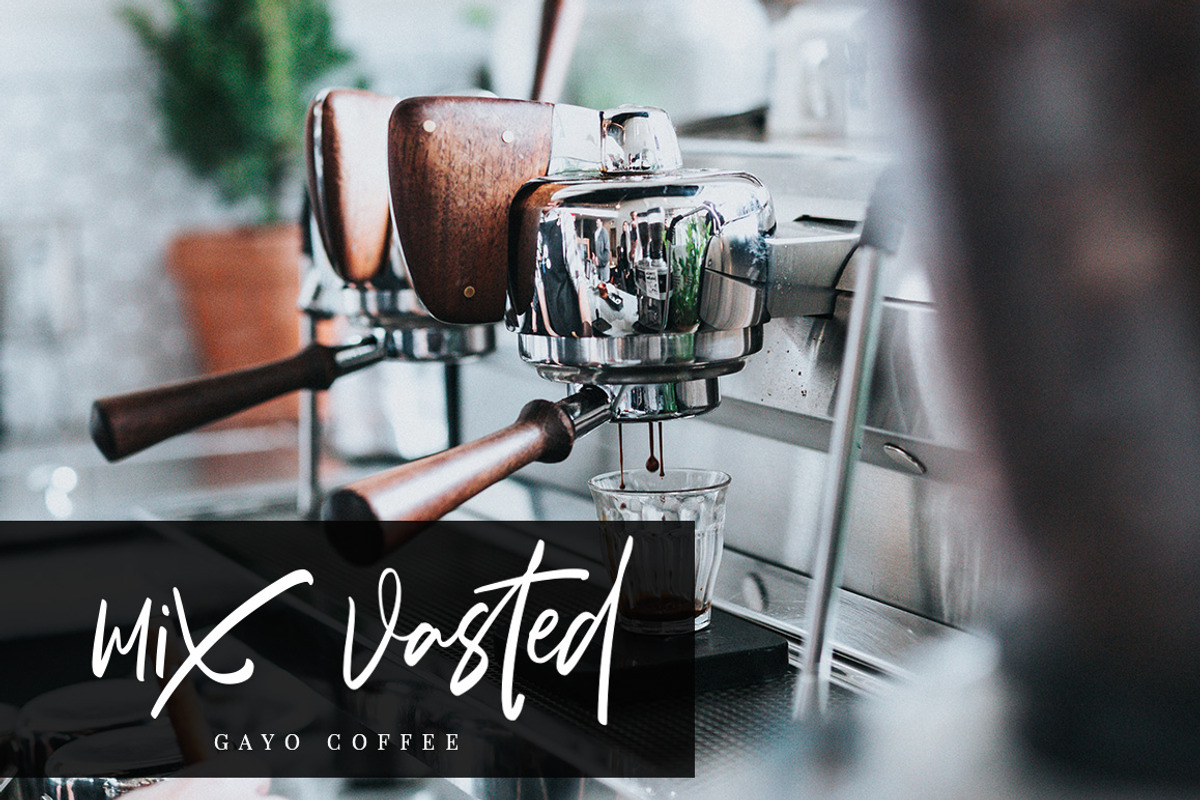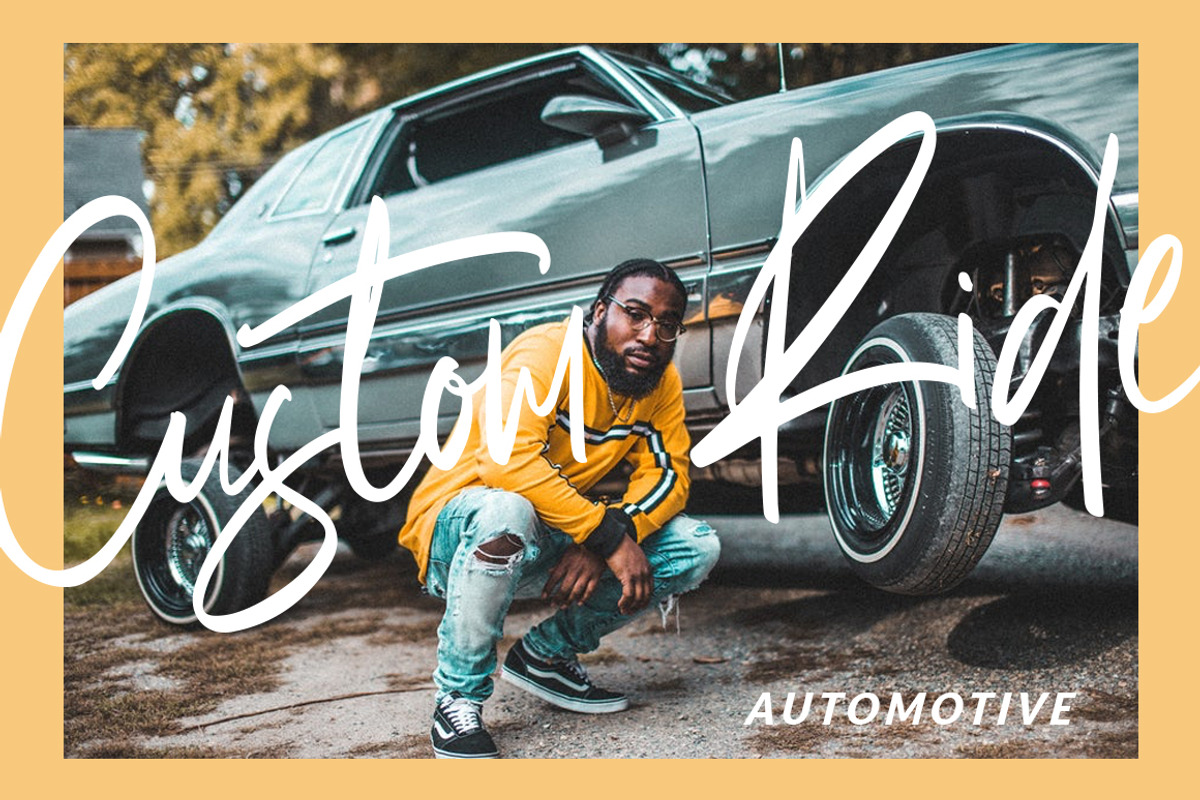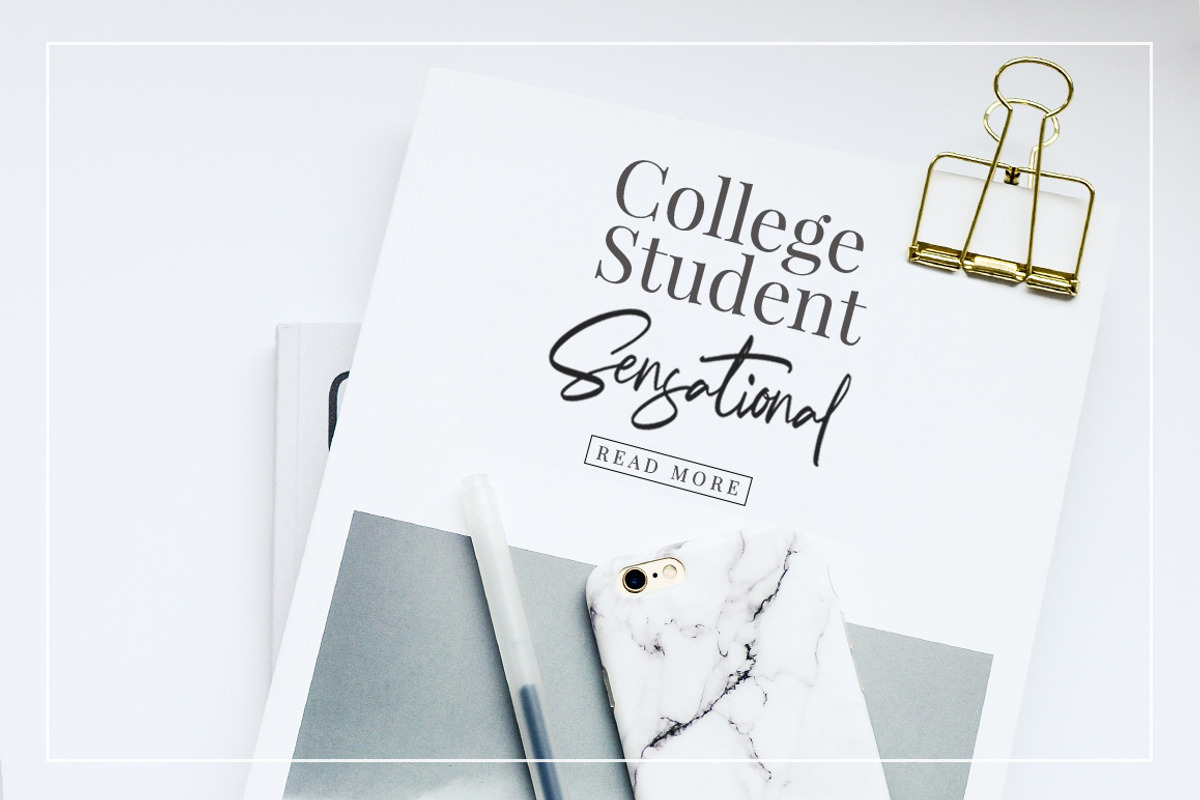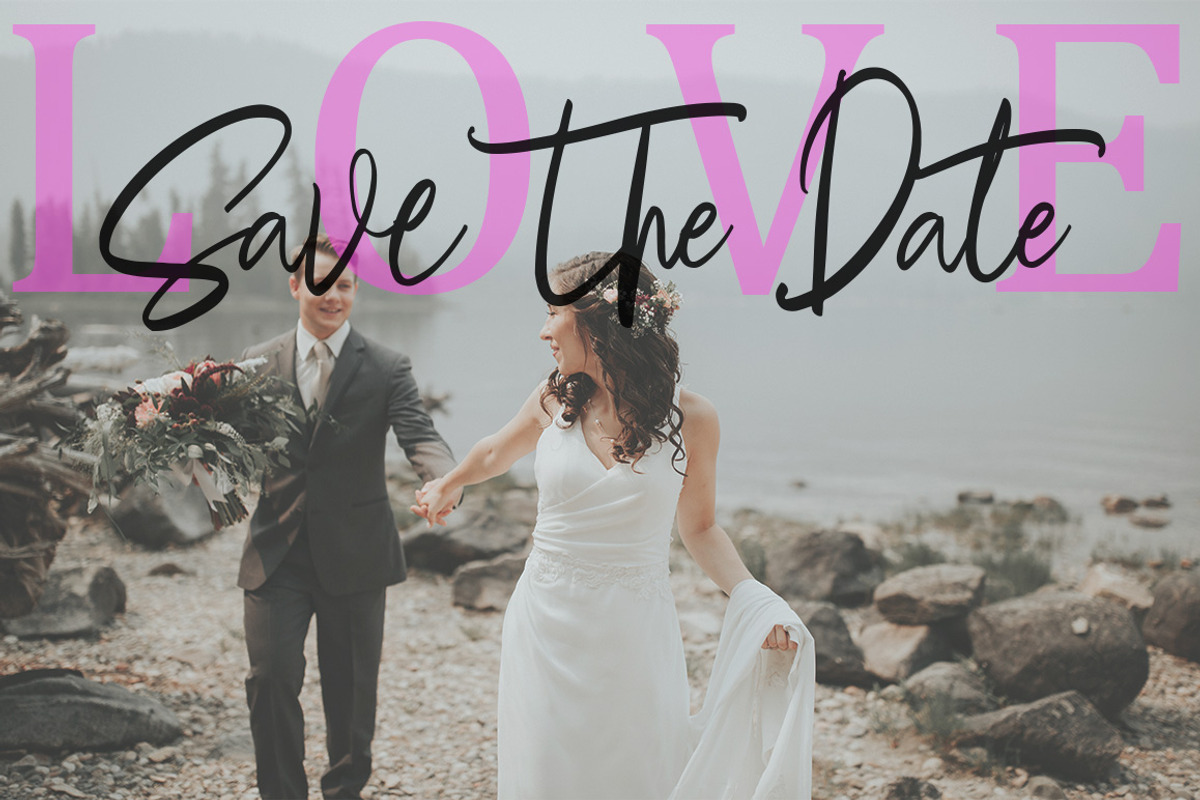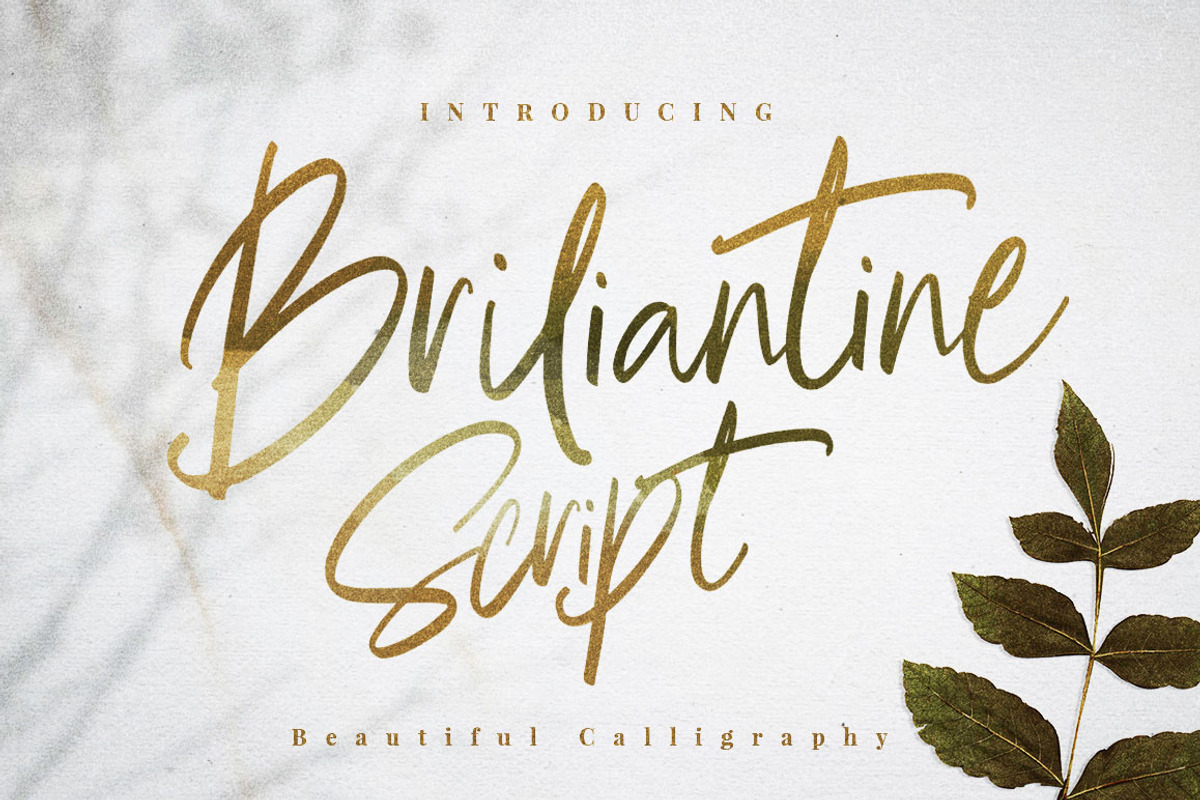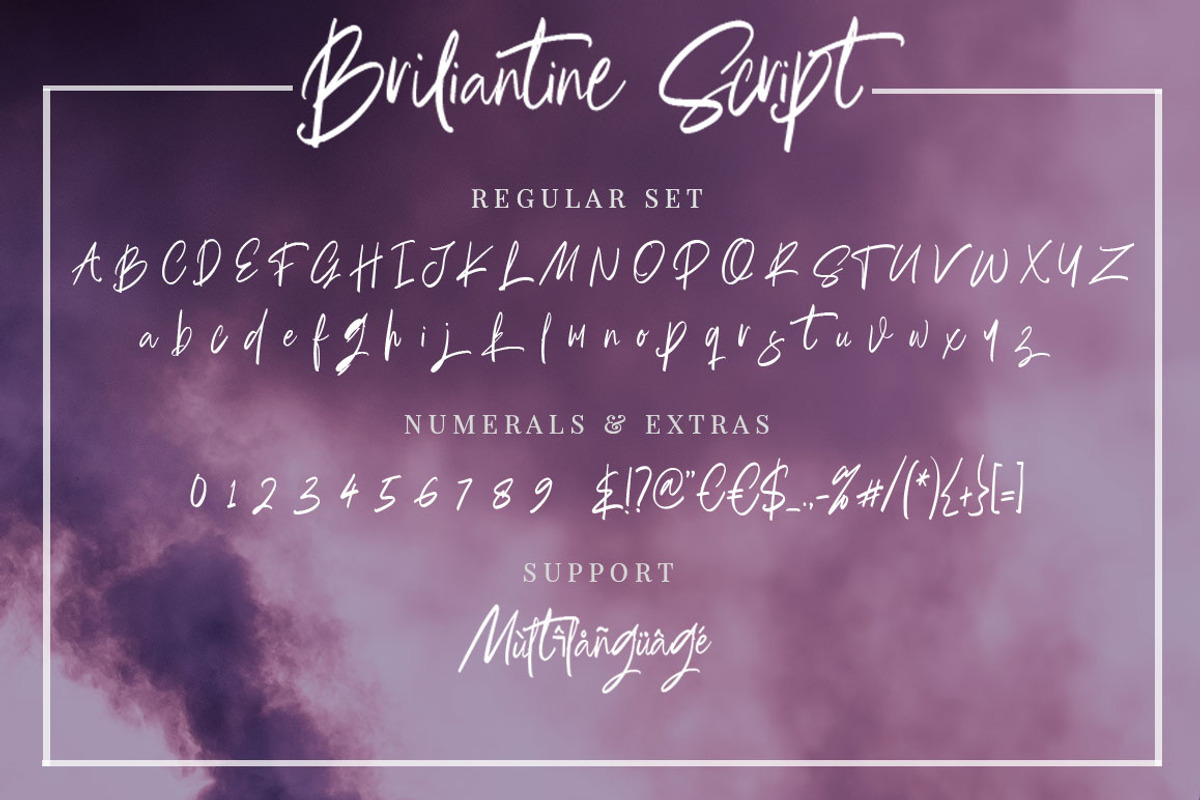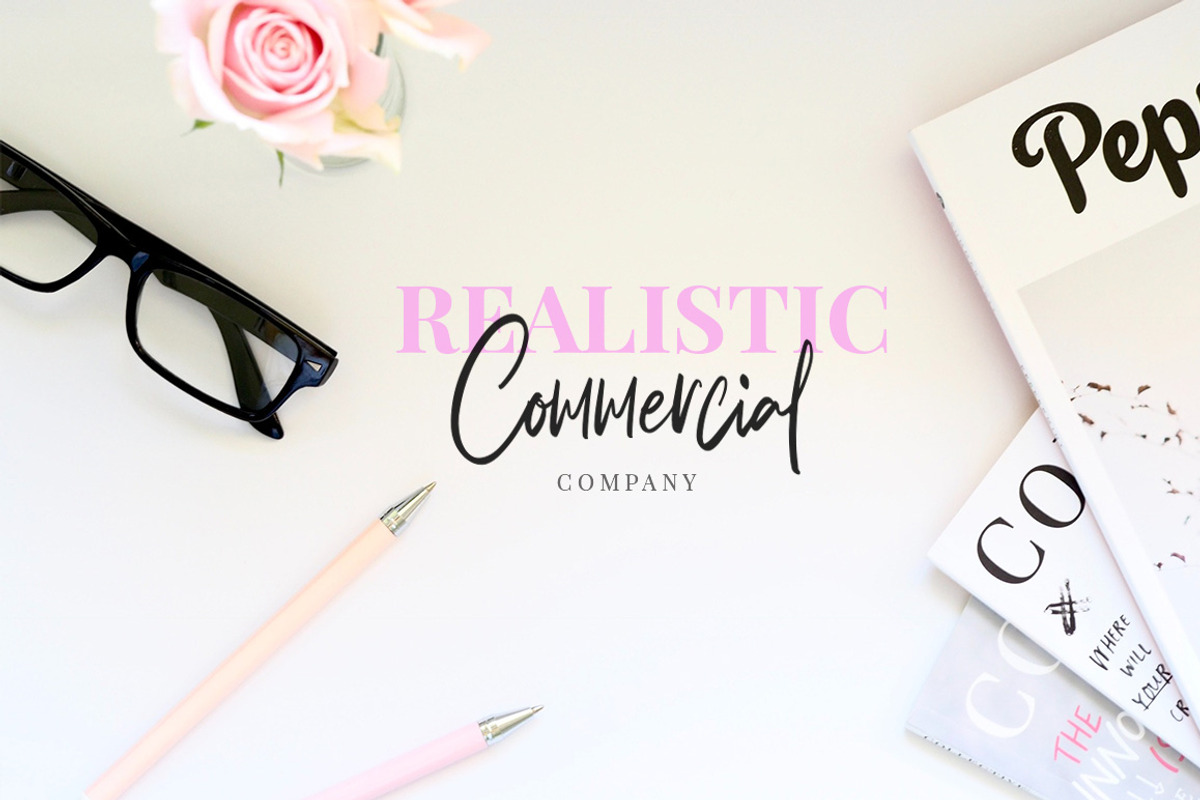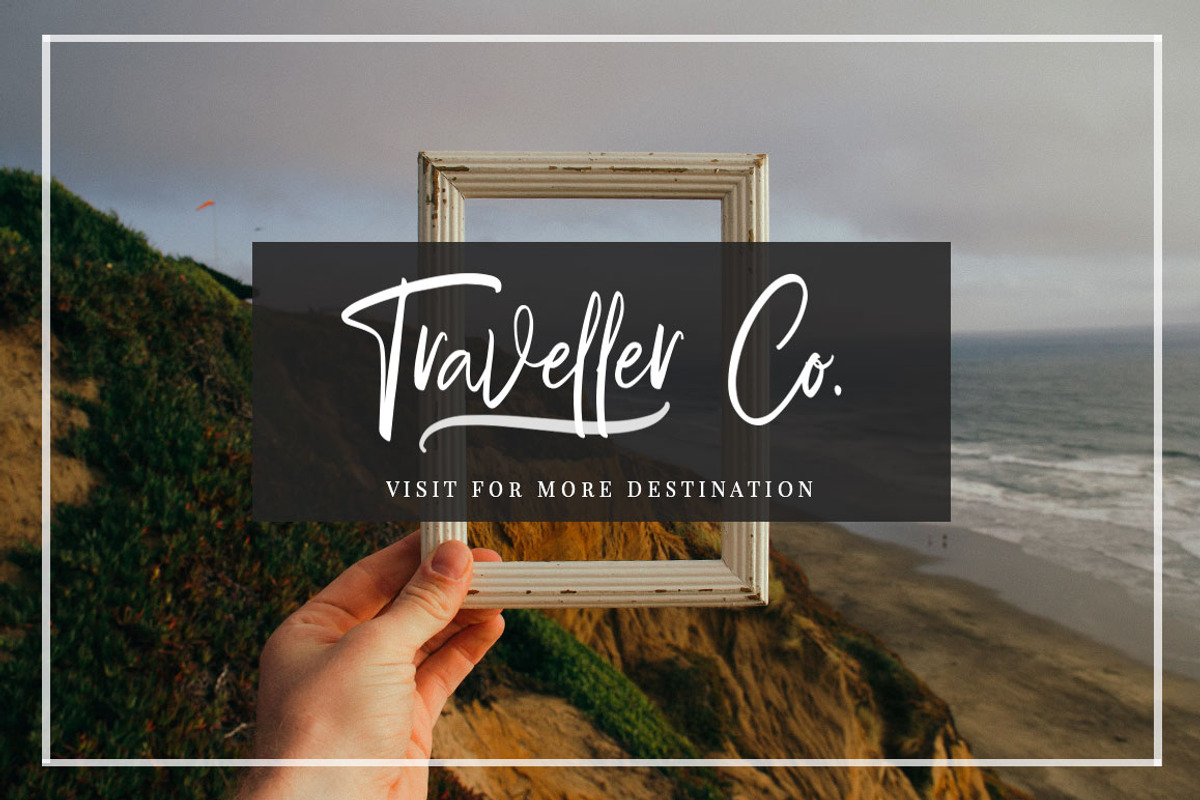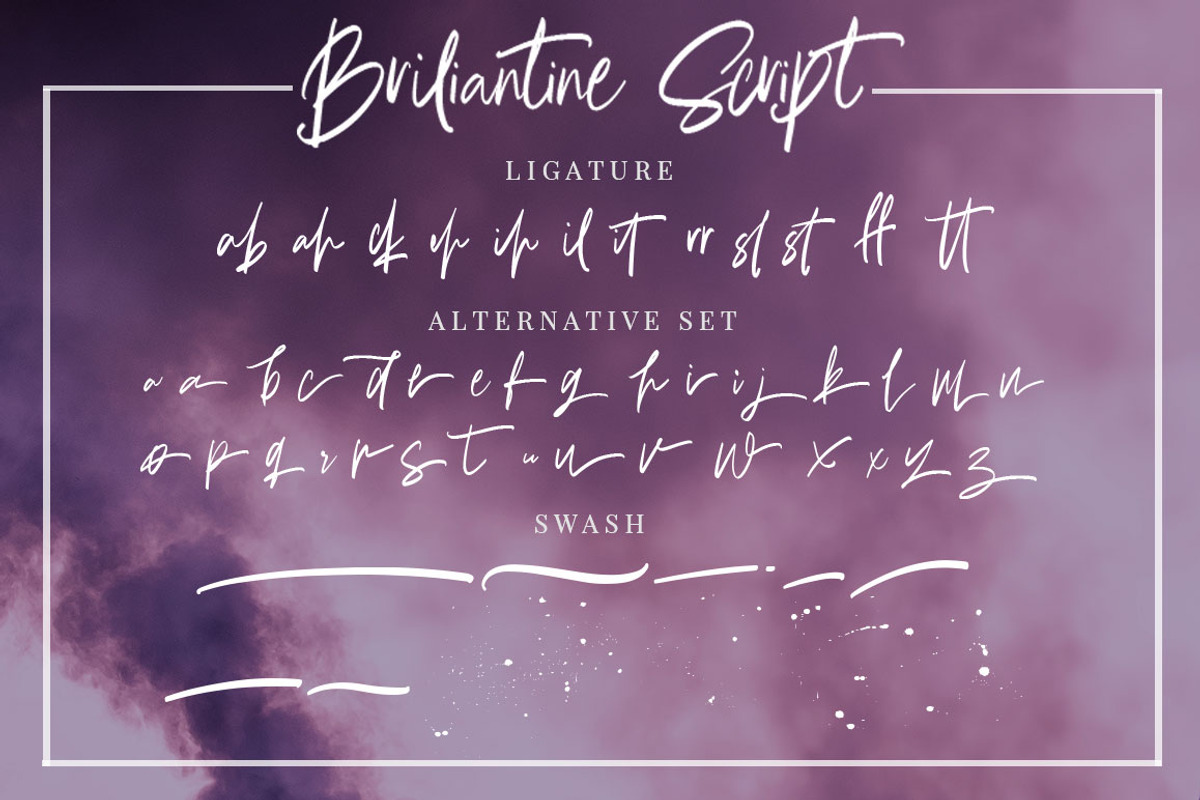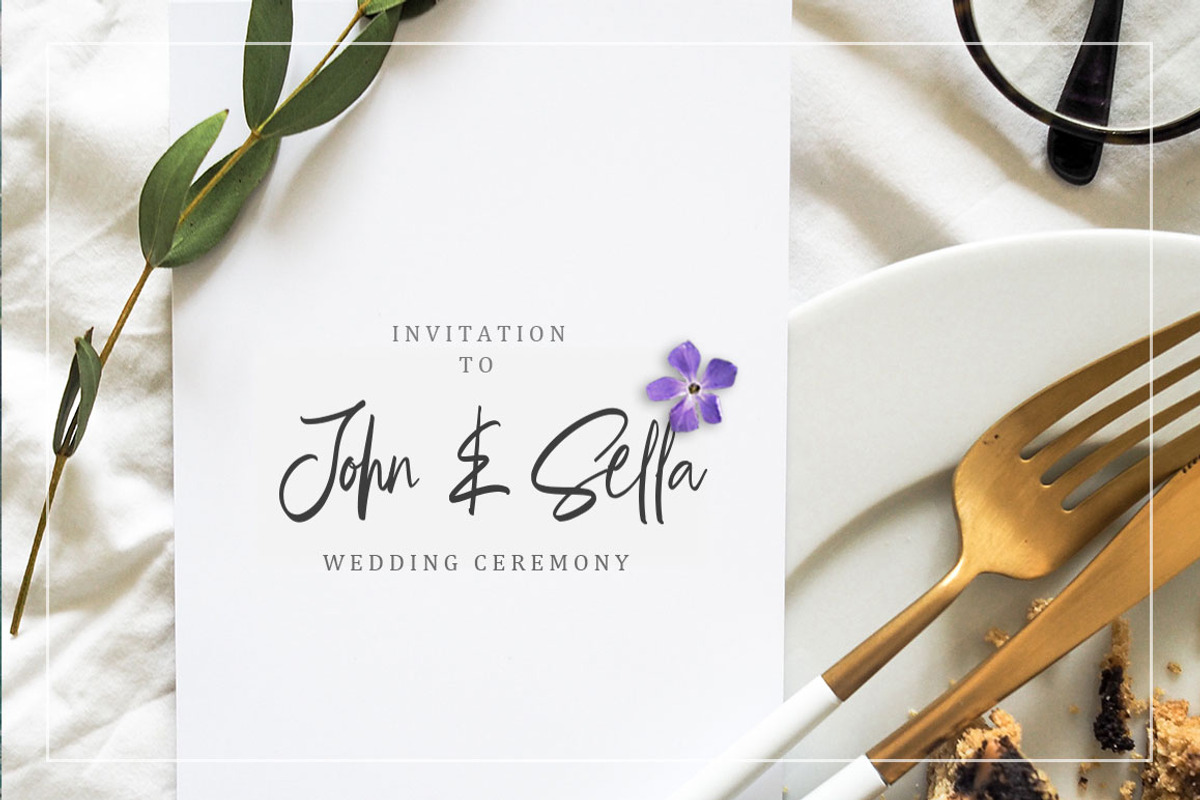
Briliantine Beautiful Script
Introducing the " Briliantine Script " is Beautiful Calligraphy Typefaces. A fashionable and super-chilled new handwriting font script with some sexy stylish extras.
Briliantine Script offers beautiful typographic harmony for a diversity of design projects, including logos & branding, wedding designs, social media posts, advertisements & product designs.
- Alternative Stylistic
- Stylistic Set
- Multilanguage Support